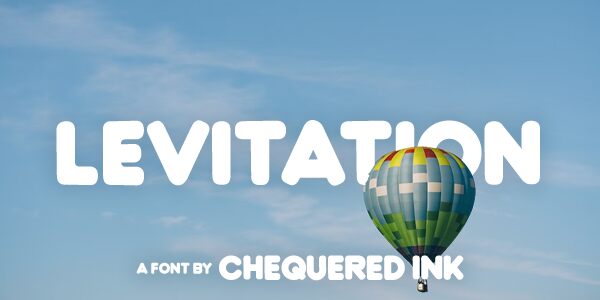
Introducing Levitation, an eye-catching round sans serif font designed by Allison J James. With its bold weight and wide width, Levitation is perfect for creating bold headlines, logos, posters and web designs. It's also great for titles and captions in social media posts.
Levitation
Levitation by Chequered Ink.
Allison J James